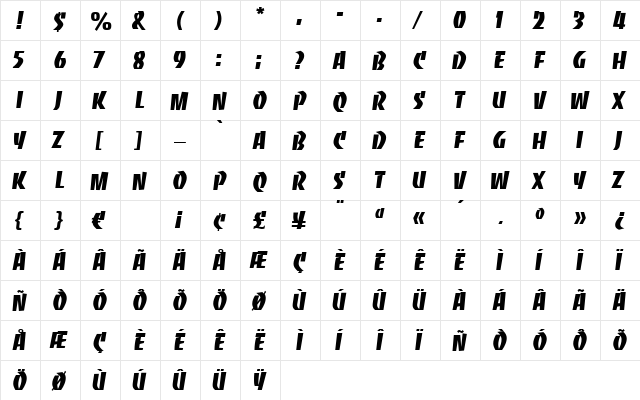
Etappe Regular
Design Context for Etappe Typeface
Etappe is a composed and adaptable typeface that performs quietly and consistently across a wide range of design contexts.